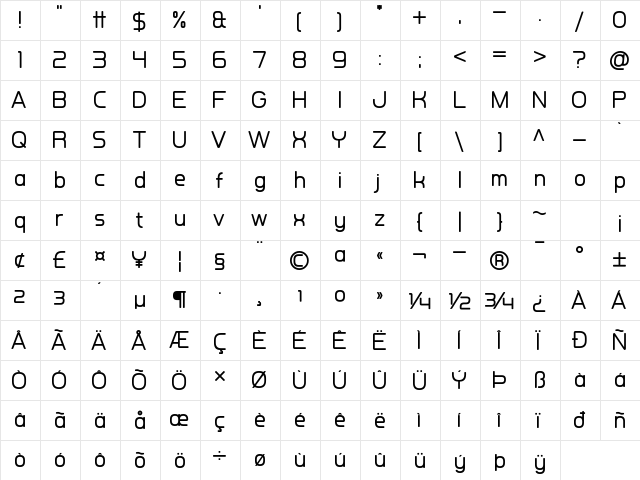
Kuiper Belt Regular
Design Context for Kuiper Belt Typeface
Kuiper Belt takes a measured approach to typography — its balanced proportions and neutral character make it a reliable workhorse for both digital and print work.
Pro Tip: Use Kuiper Belt in both headline and body roles to test its range before committing to a single application.